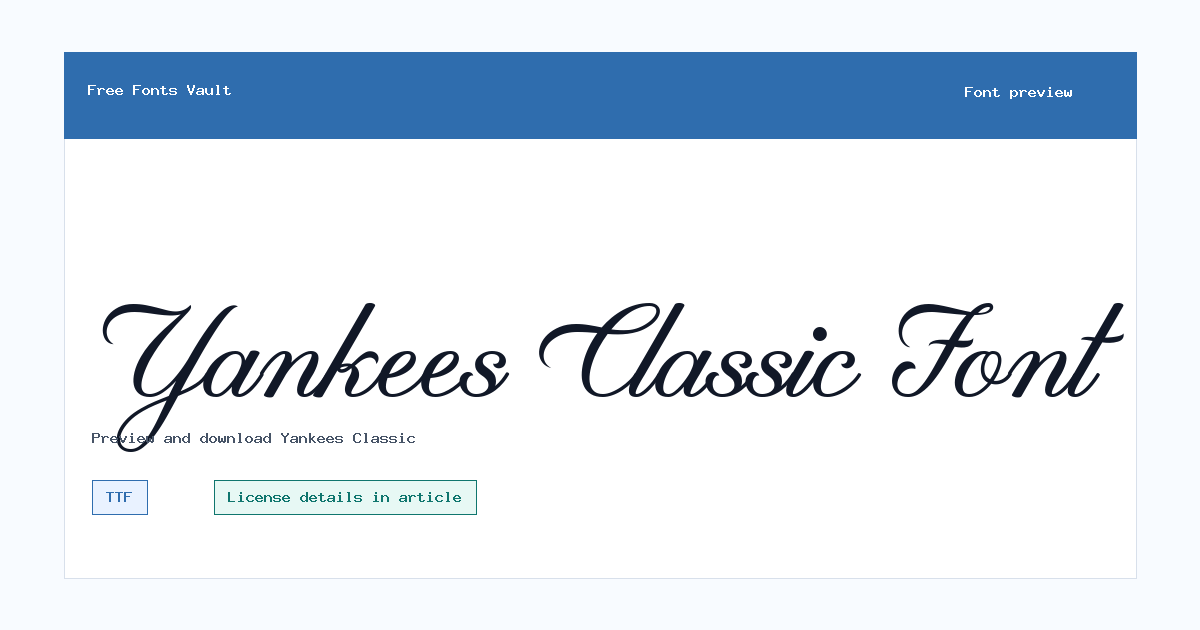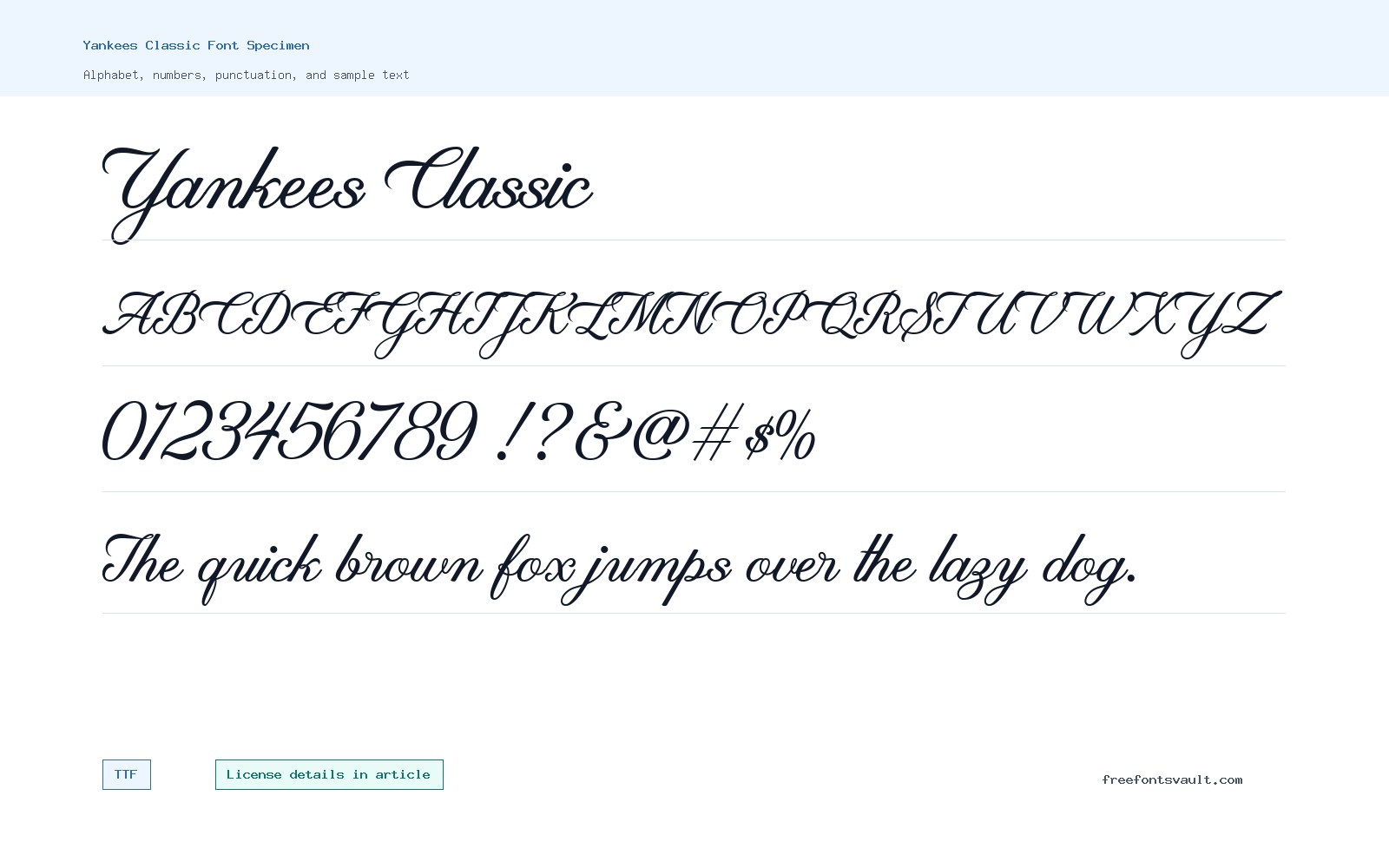
Yankees Classic
Yankees Classic font.
Yankees Classic is a bold display TTF by Muntab Art, useful for short words and nameplate-style graphics where the type needs a strong classic sports mood.
About Yankees Classic Font
Yankees Classic is best treated as a display font, not a paragraph font. It suits short title lines, badge layouts, retro labels, poster words, thumbnails, and sports-inspired mockups where the lettering needs to carry most of the visual personality. Use the preview with your exact words, because display fonts can feel very different once team names, dates, numbers, or punctuation are added.
- Bold display personality for short words and title lines
- Sports-inspired classic nameplate feel without claiming brand affiliation
- Best at larger sizes where the letter shapes can breathe
- Works well as an accent next to a plain readable companion font
- Sports-style posters, badges, and headline graphics
- Retro labels, thumbnails, signs, and short promotional text
- Team-inspired personal mockups without official affiliation claims
- Bold title lines for cards, covers, and social images
- Display typography paired with simpler text for details
Use Yankees Classic for short words, not long copy. Test uppercase, numbers, and spacing in the preview, then pair it with a plain companion font for captions, descriptions, and other supporting text.
What is Yankees Classic best for?
It works best for short display text such as badges, posters, labels, thumbnails, and bold title graphics.
Is it good for body text?
No. Use it for large headings and pair it with a simpler readable font for paragraphs or small details.